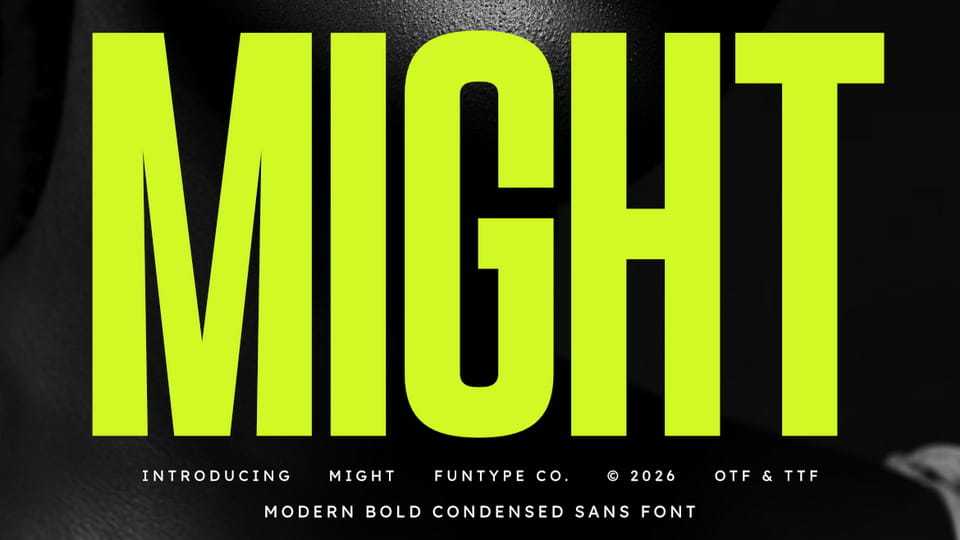
Download Might font, a massive and powerful modern bold condensed sans serif typeface designed for high-impact and precise typography.
Designer: Funtype Co.